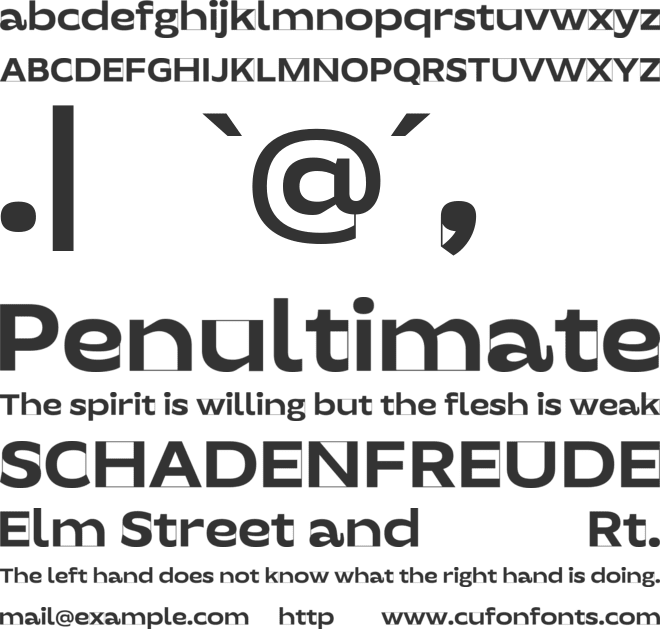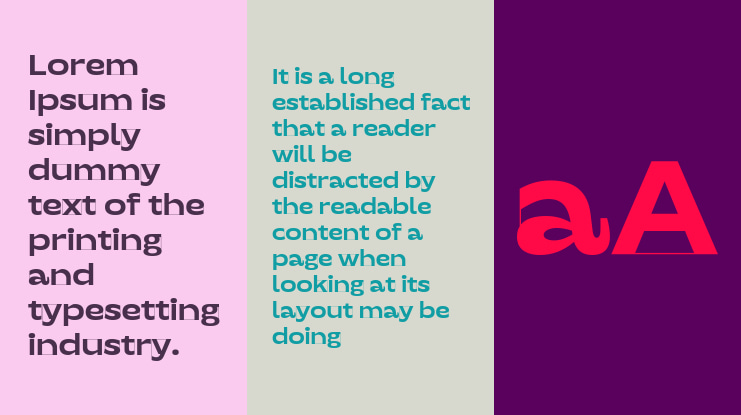
UT Noxdev Close Font Family
UT Noxdev is a bold display typeface built on contrast and structure. It combines open and closed letterforms with sharp angles and smooth curves, creating a strong visual rhythm that feels modern, technical, and expressive. Designed for impact, it stays clean and readable even at large sizes.